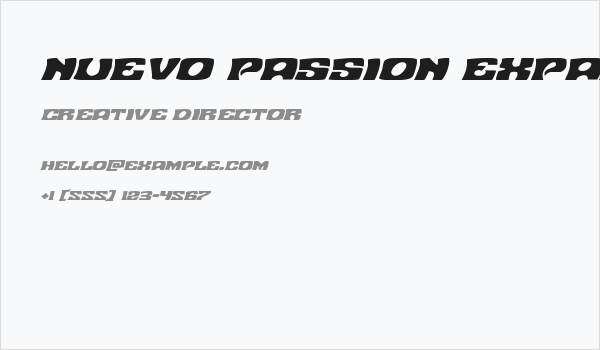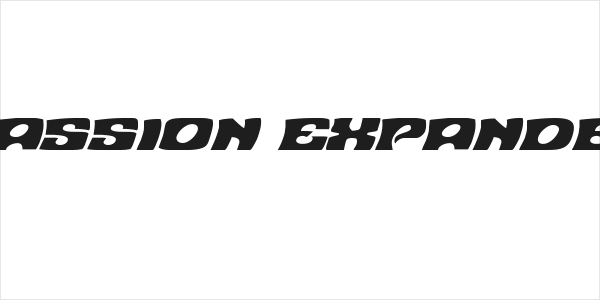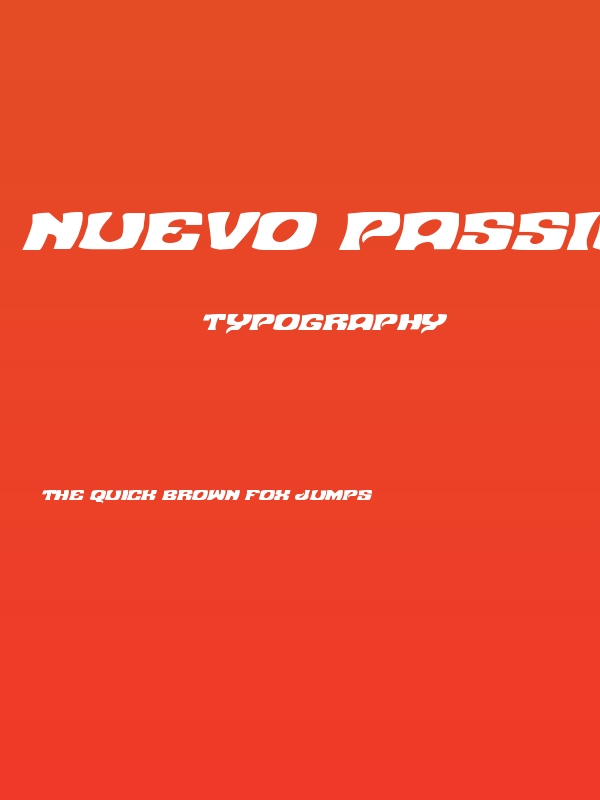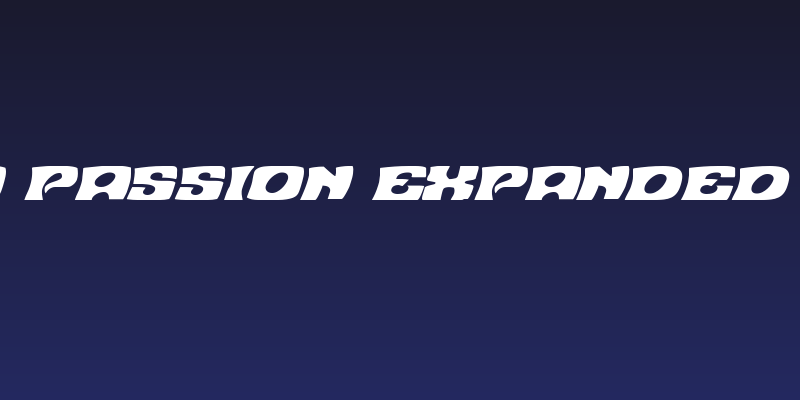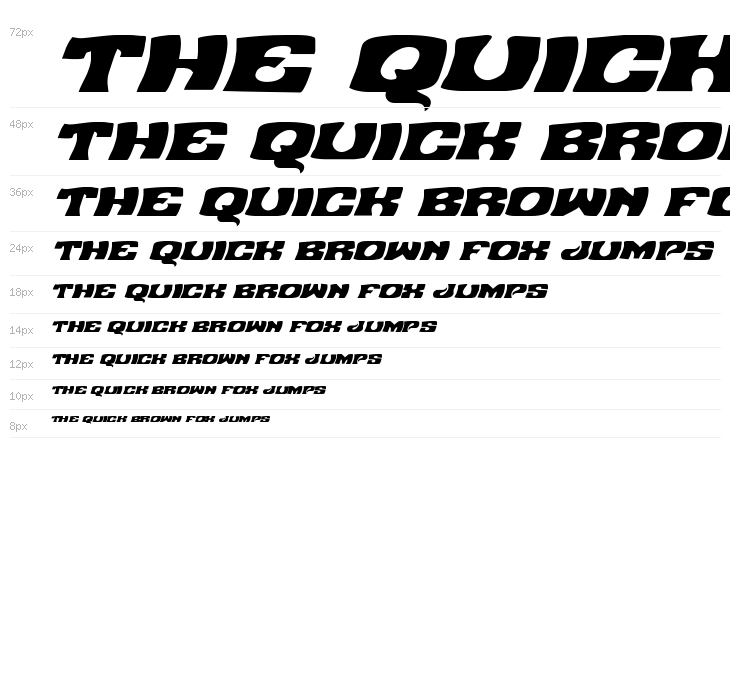
Nuevo Passion Expanded Italic Font
Nuevo Passion Expanded Italic Description
This font features a bold, italicized style with an expanded width, giving it a dynamic and energetic appearance. The characters are heavily stylized with sharp angles and unique curves, creating a sense of movement and flair. The uppercase and lowercase letters maintain a consistent design, while the numbers and special characters are equally bold and distinctive. The overall look is modern and eye-catching, making it suitable for projects that require a strong visual impact.
Proposed ProjectsIdeal for sports branding, dynamic posters, edgy advertisements, and modern logo designs.